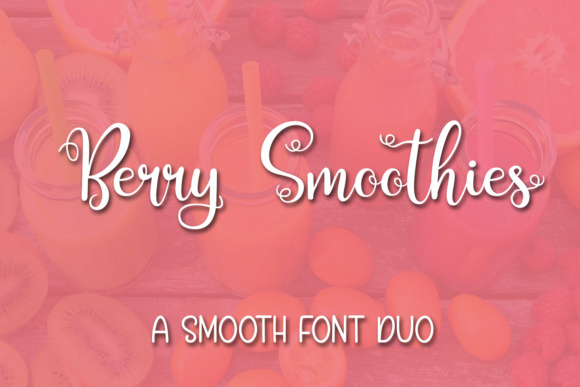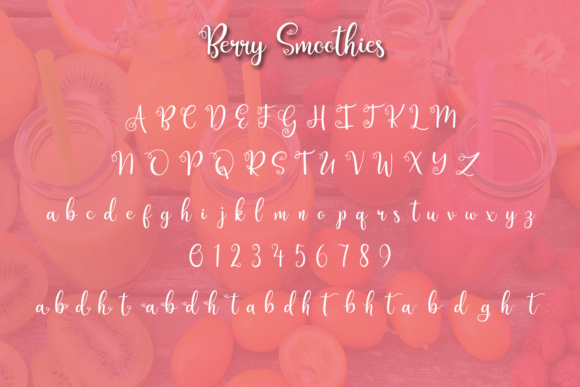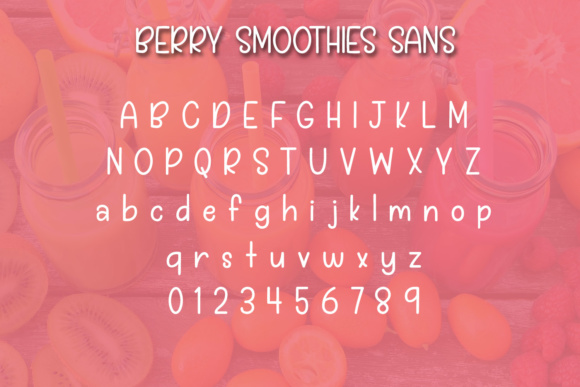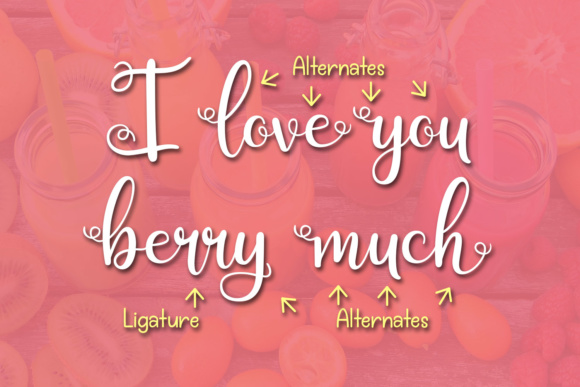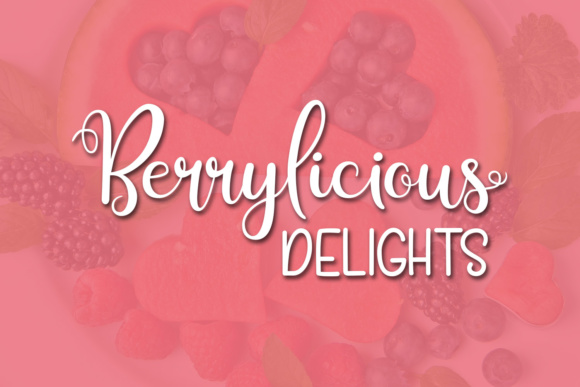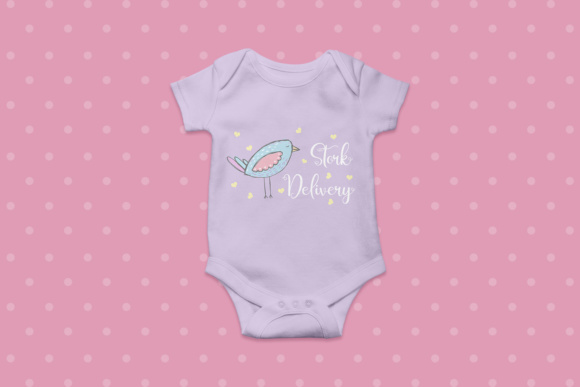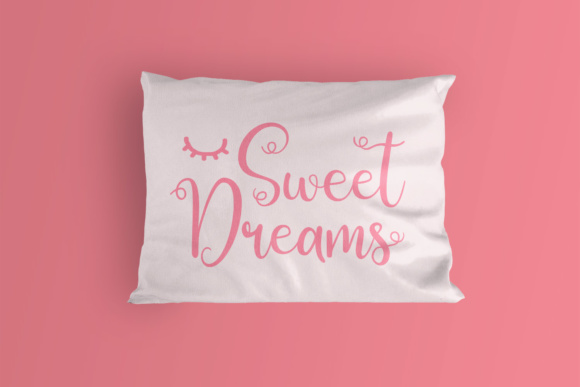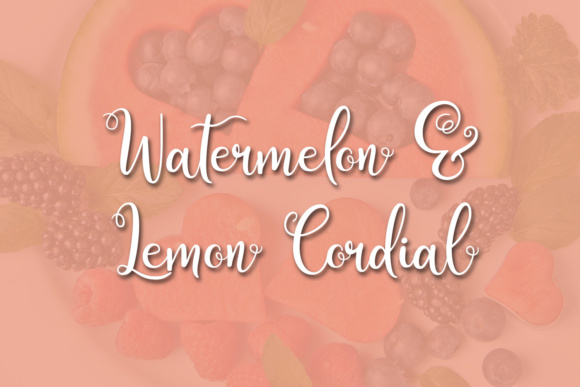
Berry Smoothies Font
About Berry Smoothies Font
The Berry Smoothies is a beautiful font duo, including Berry Smoothies script and Berry Smoothies sans! You can mix and match the fonts to create the perfect look for your design. Discretionary ligatures assist in providing a handwritten look so that your double letters look a little different to each other. A handful of swashes and decorative swirls are also included.